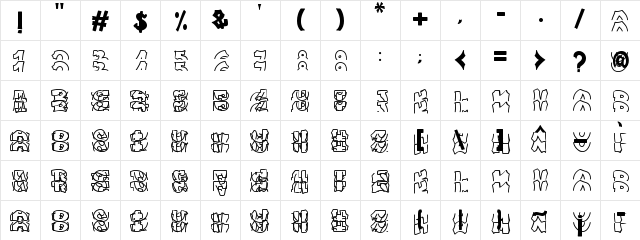
Complete Plump Stacked Monogram Regular glyph index. Displaying only characters natively supported by Plump Stacked Monogram Regular font.
Plump Stacked Monogram uses fixed-width spacing throughout, giving it the structured, systematic character associated with coding environments and technical documentation.